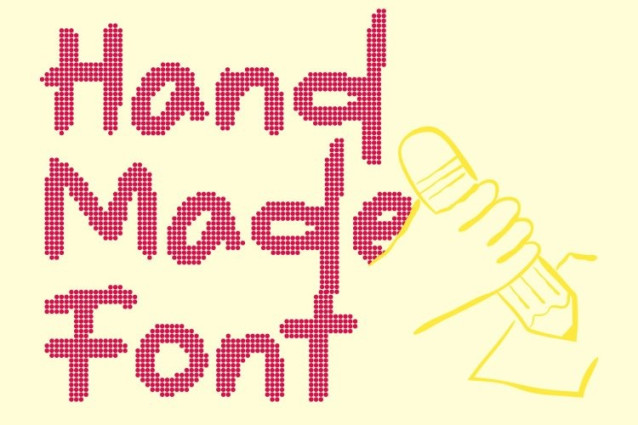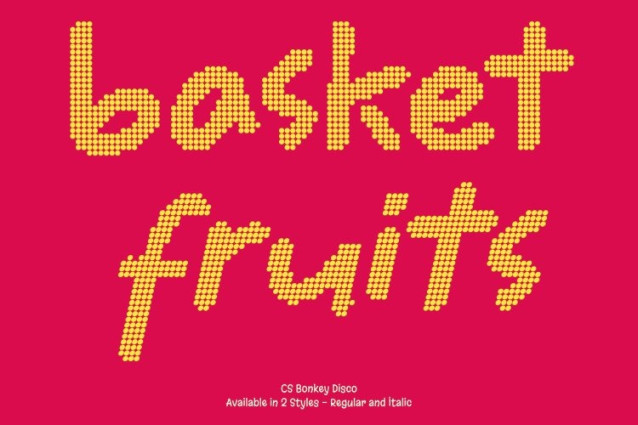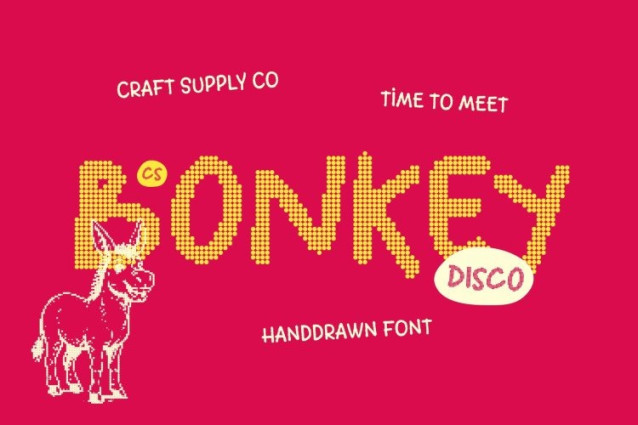
CS Bonkey Disco Font
CS Bonkey Disco Font This is a cute handwritten font designed to radiate pure happiness and playful energy. Its friendly strokes and rounded sans serif influence capture the warmth of casual handwriting, enhanced by a subtle disco-era cheerfulness. Every letter feels soft, bouncy, and welcoming perfect for designs that want to feel lively and fun.
Rounded Shapes for Friendly, Retro-Inspired Visuals
The rounded letterforms give this font a gentle and delightful appearance. Smooth curves enhance readability while adding a lovable, childlike tone inspired by the joyful visual style of the 70s and early 80s. This simplicity ensures designs feel bright, youthful, and irresistibly engaging.
Expressive Strokes with Cheerful Disco Energy
Expressive handwritten strokes bring movement and personality to every composition. The natural flow introduces rhythm and creativity, echoing the upbeat spirit of disco. This energetic expression helps designs communicate friendliness, excitement, and storytelling charm.
Perfect for Kids’ Projects, Parties, and Playful Branding
This font shines in children’s projects, party invitations, playful branding, packaging, crafts, and cheerful social media visuals. From kids’ book titles and cute stickers to fun logos and joyful posts, this font fills every design with warmth, happiness, and lively retro fun.